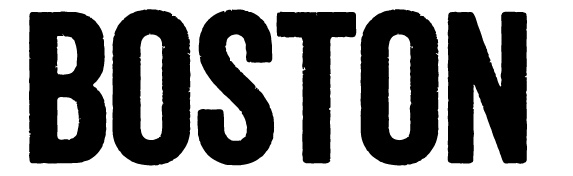
Hi! looking for this font, can find matches that are quite similar that aren’t distressed, and Veneer seems to be the closest distressed one I can find, but that’s not the exact one either. Suggestions welcome! Thanks in advance.
I think it’s Standard CT Cond Bold manually distressed.